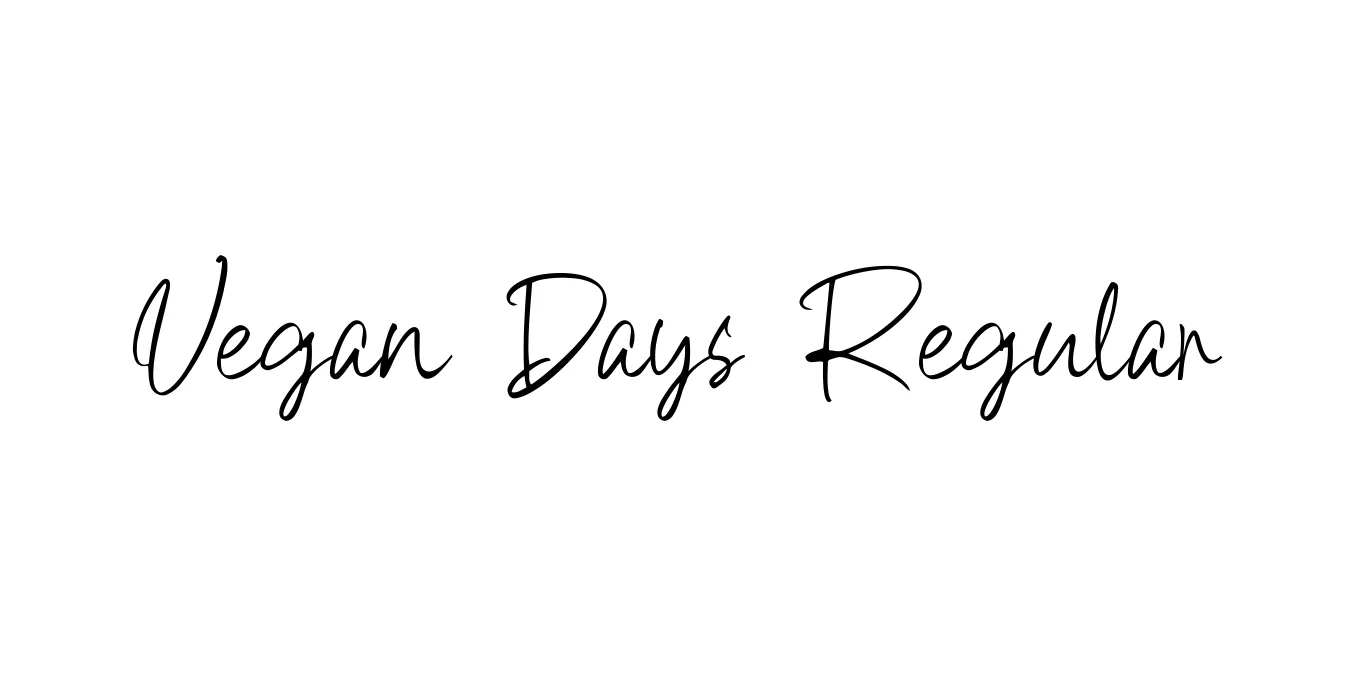
Vegan Days Regular
Designed by Billy Argel
Vegan Days Regular is a beautifully crafted script font designed by the renowned Billy Argel. It embodies a natural and organic aesthetic, making it an ideal choice for projects that aim to convey a sense of freshness and health. The fluid strokes and authentic hand-drawn feel give each character a unique personality, bridging the gap between elegance and rustic charm.
This typeface is particularly effective in branding for lifestyle products, eco-friendly initiatives, and food-related ventures. Its versatility allows it to stand out in both digital and print media, providing a welcoming atmosphere for viewers. Whether used for social media graphics or packaging design, Vegan Days Regular ensures a sophisticated yet approachable visual identity.
Vegan Days Regular Best Uses
Perfect for organic food labels and vegan product packaging.
Great for lifestyle quotes and Instagram story overlays.
Adds a personal touch to wedding stationery and event invites.
Suitable for eco-conscious brands looking for a custom hand-drawn look.